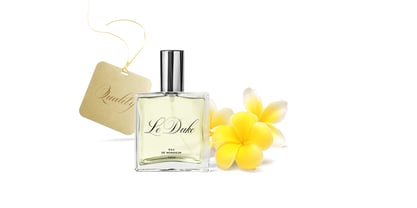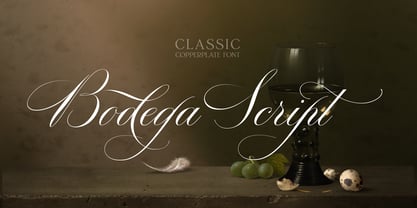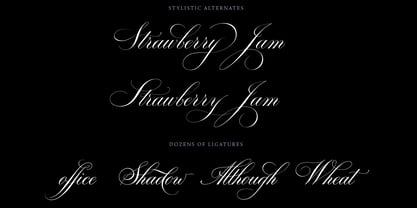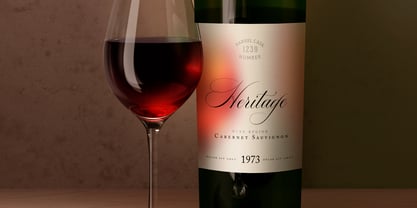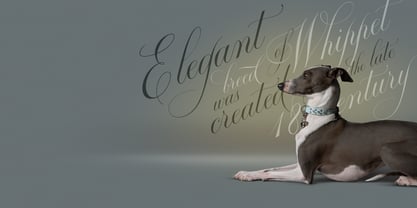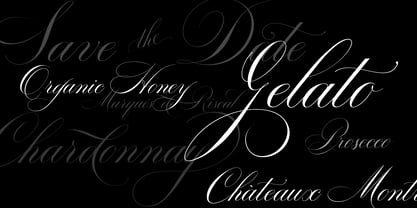
Bodega Script
by vatesdesign
The Bodega Script Font Family was designed by Aleksey Ivanov and published by vatesdesign. Bodega Script contains 1 styles. More about this family
Bodega Script is an elegant high-contrast copperplate-style script typeface designed for refined display use. It features a rich set of ligatures and numerous stylistic alternates, making it ideal for sophisticated branding, vintage logos, wine and food packaging, fashion labels, and premium stationery. Bodega Script blends classic calligraphic forms with a modern touch, offering both elegance and versatility for high-end design projects.
Designers: Aleksey Ivanov
Foundry: vatesdesign